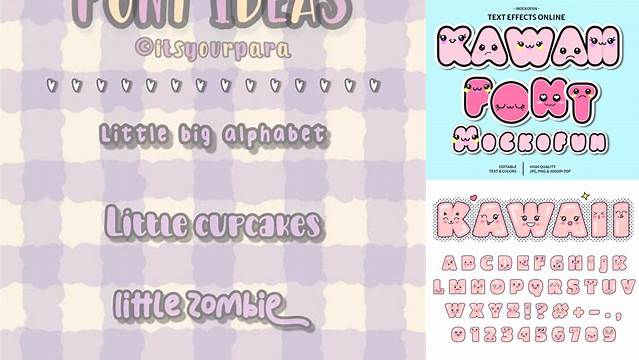
Kawaii Fonts: Copy & Paste Aesthetic Text Guide
Hey there, font fanatics and aesthetic aficionados! Ever wondered how to sprinkle a little bit of kawaii magic into your social media posts, bios, or even your everyday text messages? Well, you're in luck! This guide is your ultimate treasure map to the world of kawaii fonts copy paste aesthetic, where adorable characters and charming styles reign supreme. We'll dive deep into the realm of cute fonts, exploring how to find them, use them, and make your text pop with personality. Get ready to transform your words into works of art that scream "cute" from every pixel! This is especially useful for those of you looking to copy paste aesthetic text to use on various platforms. Let's get started, shall we?
What are Kawaii Fonts, and Why Should You Care?
Let's get down to brass tacks, guys. What exactly are kawaii fonts? Think of them as the visual equivalent of a warm hug, a fluffy kitten, or a perfectly frosted cupcake. They're fonts designed to evoke feelings of cuteness, charm, and overall adorableness. These fonts often feature rounded edges, playful letterforms, and sometimes even quirky little embellishments like hearts, stars, or tiny illustrations. The primary goal is to make your text visually appealing and, well, super cute!
So, why should you care about kawaii fonts? Simple: they add personality and flair to your content. In a world saturated with text, using a cute font can help you stand out from the crowd. Whether you're a social media influencer, a blogger, or just someone who loves to express themselves creatively, kawaii fonts can elevate your brand and make your message more engaging. Imagine your Instagram bio transformed from a plain, boring string of words into a delightful visual treat that captures attention instantly. Or picture your blog posts enhanced with headings and subheadings that are as charming as the content itself. The possibilities are endless!
Beyond the aesthetic appeal, kawaii fonts have a unique ability to connect with your audience on an emotional level. They instantly create a sense of warmth, friendliness, and approachability. This is especially useful if your brand or personal style is all about positivity, fun, and lightheartedness. By using these fonts, you're essentially saying, "Hey, I'm friendly, approachable, and I want to make you smile!"
Finding the Perfect Kawaii Font: Your Font-Hunting Toolkit
Alright, time to gear up and go font-hunting! Finding the perfect kawaii font can feel like a treasure hunt, but don't worry, I've got your back. Here are some tried-and-true methods for discovering the cutest fonts on the web:
- Font Websites: This is your primary resource. Websites like Google Fonts, DaFont, and FontSpace offer a vast selection of fonts, including many that fit the kawaii aesthetic. When browsing, use keywords like "cute," "kawaii," "rounded," and "handwritten" to narrow down your search. Check the licenses carefully, as some fonts are free for personal use only, while others require a commercial license for business purposes.
- Font Generators: Font generators are the quick and easy solution, especially when you want the copy paste aesthetic. They allow you to type your text, and they convert it into different styles. If you’re looking for a copy paste aesthetic solution, this is perfect.
- Online Communities: Join online communities and forums dedicated to fonts and graphic design. Platforms like Reddit (subreddits like r/fonts) and Behance are great places to discover new fonts and get recommendations from fellow font enthusiasts. You can also ask for specific font suggestions based on your needs.
- Social Media: Keep an eye on social media platforms like Instagram and Pinterest. Designers and creatives often showcase their favorite fonts in their posts. You might stumble upon a hidden gem that perfectly matches your style. Follow design-related accounts to stay updated on the latest font trends.
- Identify Fonts: Tools like WhatTheFont and Fontspring Matcherator allow you to upload an image of text and identify the font used. This is incredibly helpful if you see a kawaii font you love somewhere online and want to use it yourself.
Copy and Paste: How to Use Your Kawaii Fonts
Now that you've found some kawaii fonts you adore, let's talk about how to actually use them. The process is pretty simple, especially if you’re going the copy paste aesthetic route:
- Application Selection: You can use installed fonts in a variety of applications, including word processors (like Microsoft Word and Google Docs), graphic design software (like Adobe Photoshop and Canva), and social media platforms that support custom fonts.
- Copy and Paste: The most straightforward method is often to use font generators or online tools. Type in your text, select your desired kawaii font, and then copy paste the formatted text into your chosen application. This is your fast track for copy paste aesthetic text.
- Test, Test, Test: Always test your text on different devices and platforms to ensure it looks good and is easy to read.
Conclusion: Embrace the Cuteness!
There you have it, guys! Your comprehensive guide to the wonderful world of kawaii fonts copy paste aesthetic. By following these tips and techniques, you can unleash your creativity and transform your text into something truly adorable. Remember, the key is to have fun, experiment, and embrace the cuteness! So go forth, find your favorite fonts, and start spreading the kawaii love. Happy designing!